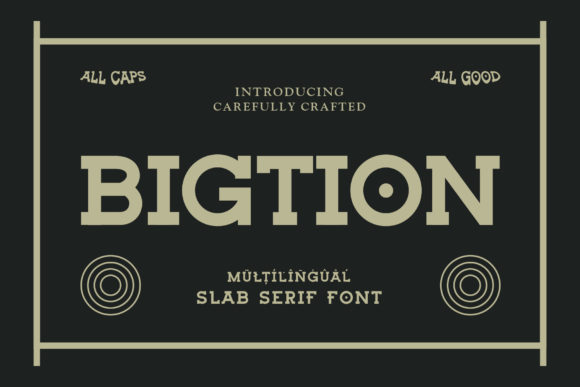
The Bigtion Font Revelation: A Designer’s Delight
I still remember the day I stumbled upon the Bigtion font while working on a project for a client’s poster design. I had tried a dozen fonts, but none seemed to capture the bold, eye-catching vibe I was going for. That’s when I discovered Bigtion – a cool, bold slab serif font that instantly elevated my design. In this article, I’ll share my experience with Bigtion, its features, and how to make the most of it in your designs.
An Honest Review of Bigtion Font
What I Love About Bigtion ✨
- 💥 Impactful and bold: Bigtion font makes a statement, perfect for posters, flyers, and prints that need to grab attention.
- ✅ Versatile: Its slab serif design works well for both modern and classic themes, making it a great addition to any design project.
- 🎨 Highly customizable: With OpenType features and glyphs, you can experiment with different styles to match your brand’s tone.
- 👍 Easy to read: Despite its boldness, Bigtion remains clear and legible, even at smaller sizes.
- ⚠️ Limited online use: Bigtion is optimized for print, so it may not be the best choice for web designs or digital media where fonts need to be lightweight and scalable.
- 🤔 Some characters may require manual kerning: While Bigtion is generally well-spaced, certain character combinations might need a bit of manual adjustment for optimal results.
Exploring Bigtion’s OpenType Features and Glyphs
Bigtion font comes with a range of OpenType features and glyphs that allow for extensive customization. You can access these features in compatible software like Adobe Photoshop, Illustrator, or Microsoft Word. Some of the features include:
- Stylistic alternates: Swap out characters for different stylistic variations.
- Ligatures: Combine certain character pairs for a more cohesive look.
- Glyphs: Access a range of alternative characters and symbols to add personality to your text.
The Story Behind Bigtion Font
Bigtion was designed by a team of typographers who aimed to create a font that would make a bold statement in any design. Inspired by classic slab serif fonts, they crafted Bigtion with modern sensibilities and a focus on versatility. The result is a font that’s both timeless and trendy, perfect for designers looking to make an impact.
Q: What type of projects is Bigtion best suited for?
A: Bigtion is ideal for print projects such as posters, flyers, brochures, and business cards. Its bold and clear design makes it perfect for grabbing attention and communicating your message effectively.
Q: Is Bigtion suitable for digital use?
A: While Bigtion is optimized for print, it can be used for digital projects. However, keep in mind that its boldness may not translate well to smaller screen sizes or low-resolution displays.